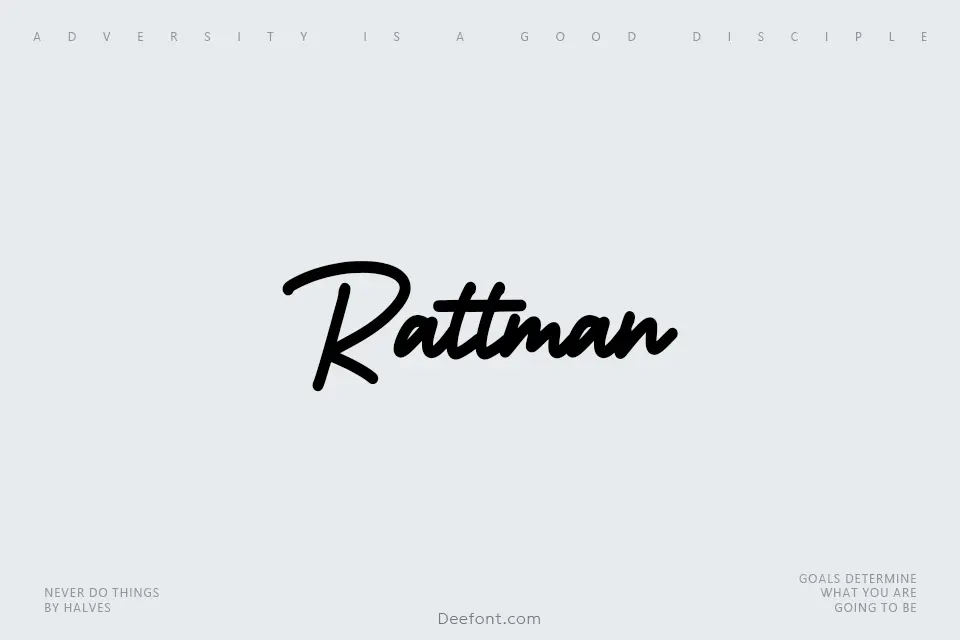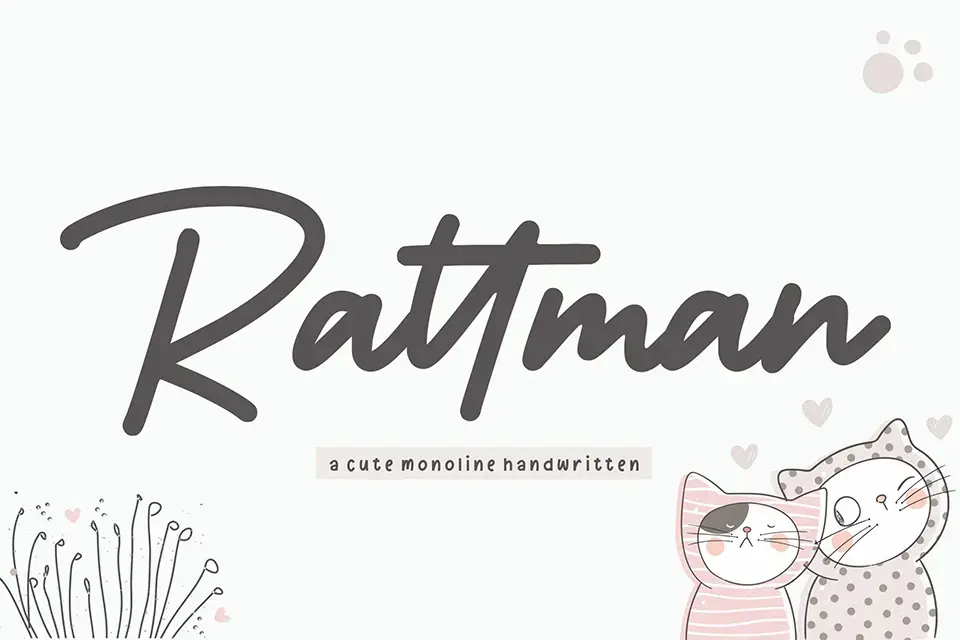
Rattman Font
Rattman is a charming monoline handwritten script font that brings a warm, casual elegance to your design projects. With consistent stroke widths throughout each character, it delivers a contemporary yet approachable aesthetic ideal for product packaging, branding initiatives, magazine layouts, social media graphics, wedding invitations, and eye-catching display materials. The font’s flowing letterforms and friendly personality make it perfect for creating posters, logos, and decorative signage that require a personal touch without sacrificing legibility.